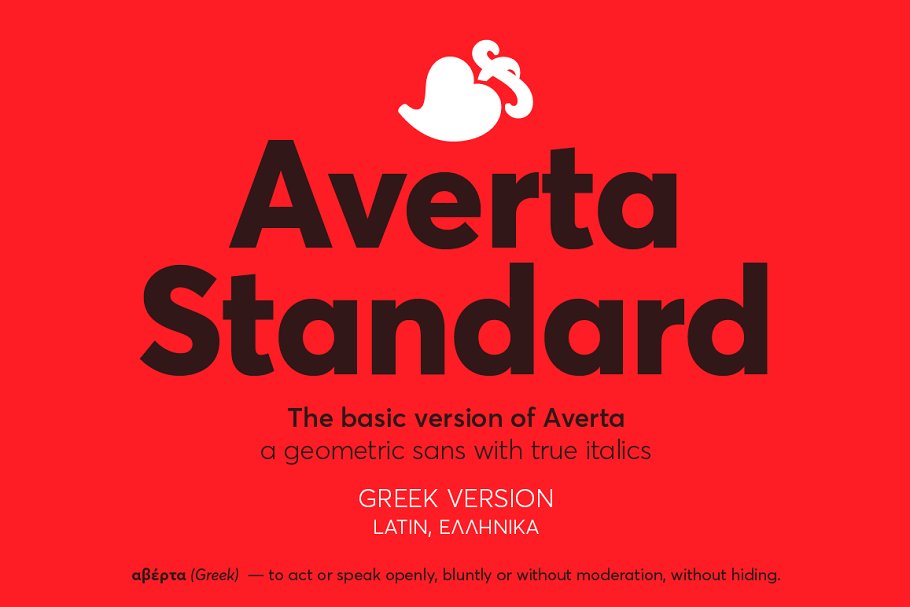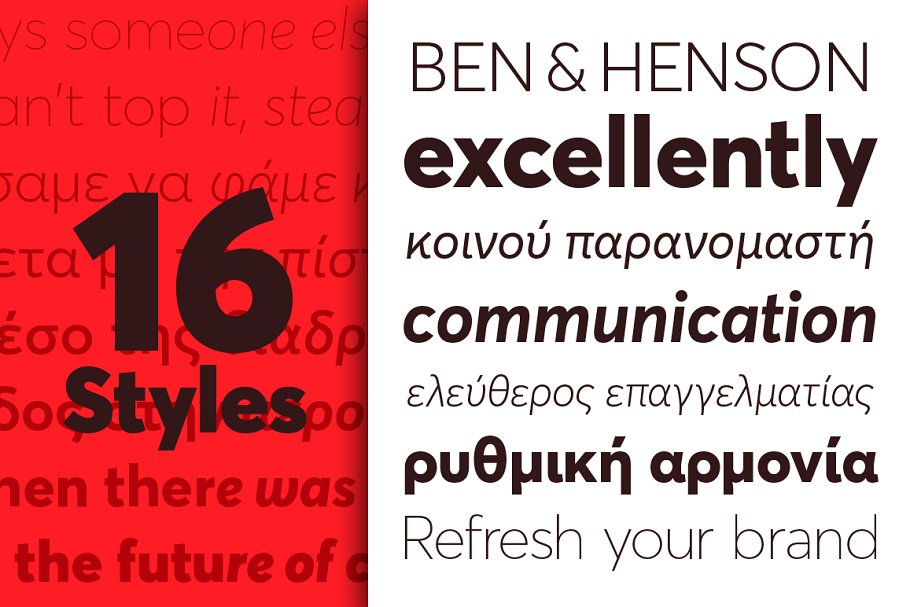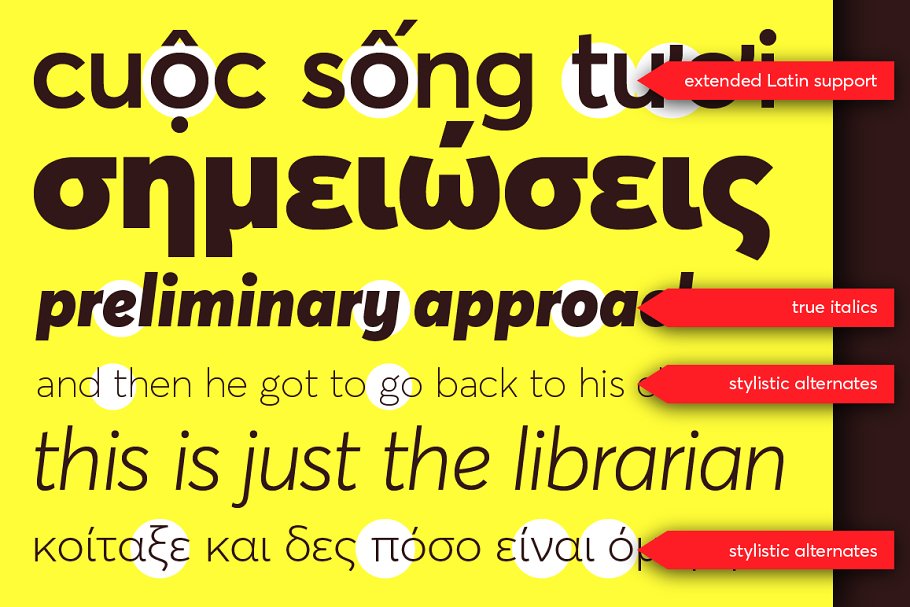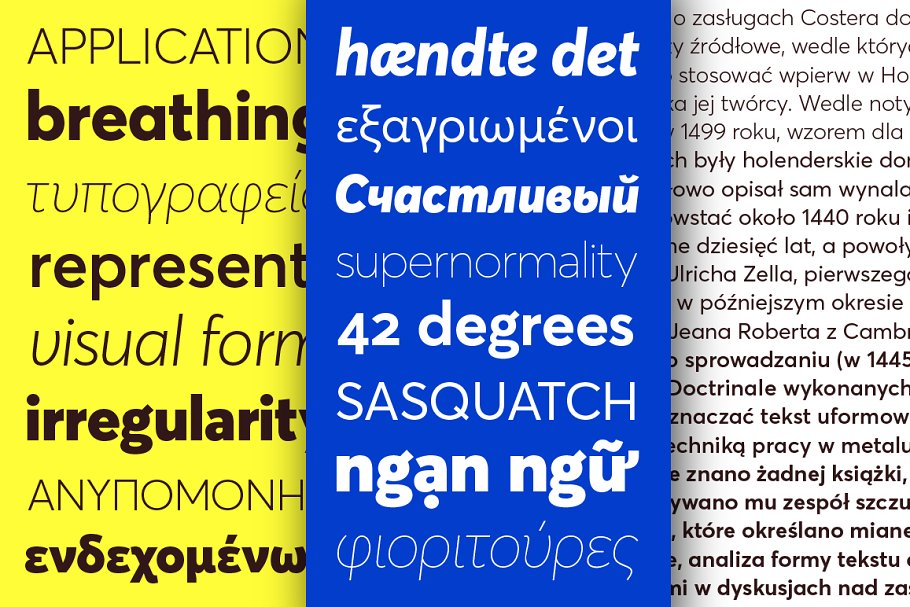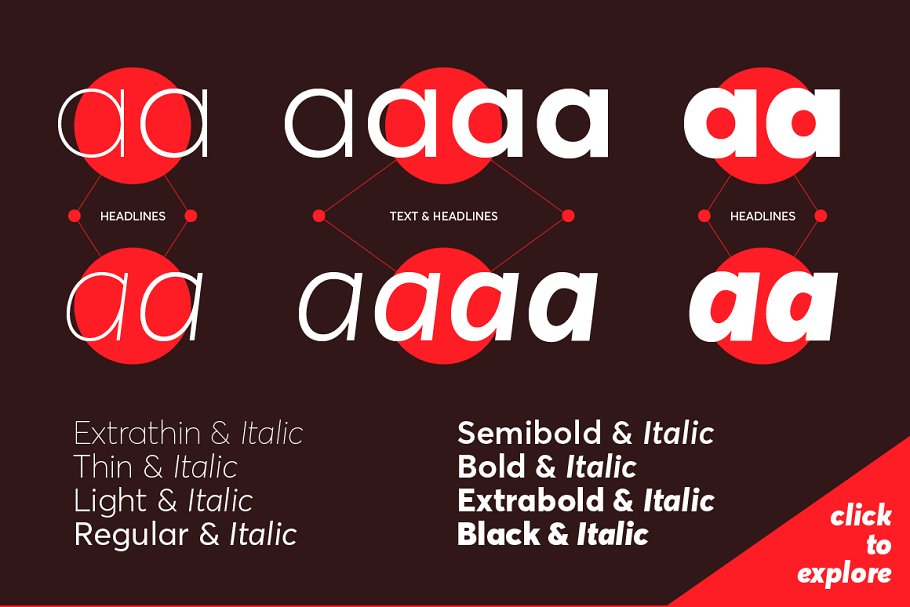
About the Averta Standard GR (Latin, Greek)
Averta Standard is the basic version of Averta (https://creativemarket, com/kosbarts/1688461-Averta-PE-%28Latin-Greek-Cyrillic%29), Bringing together features from early European grotesques and American gothics, Kostas Bartokas’ (Greek: ‘αβέρτα’ – to act or speak openly, bluntly or without moderation, without hiding) Averta is a geometric sans serif family with a simplistic, yet appealing, personality
The purely geometric rounds, open apertures, and its low contrast strokes manage to express an unmoderated, straightforward tone resulting in a modernist, neutral and friendly typeface, Averta Standard is intended for use in a variety of media, The central styles (Light through Bold) are drawn to perform at text sizes, while the extremes are spaced tighter to form more coherent headlines
The dynamism of the true italics adds a complementary touch to the whole family and provides extra versatility, making Averta Standard an excellent tool for a range of uses, from signage to branding and editorial design, This version of Averta Standard (GR) comes with alternate glyphs, case sensitive forms and contextual alternates, in eight weights with matching italics and supports over two hundred languages with an extended Latin, Greek and Vietnamese character set